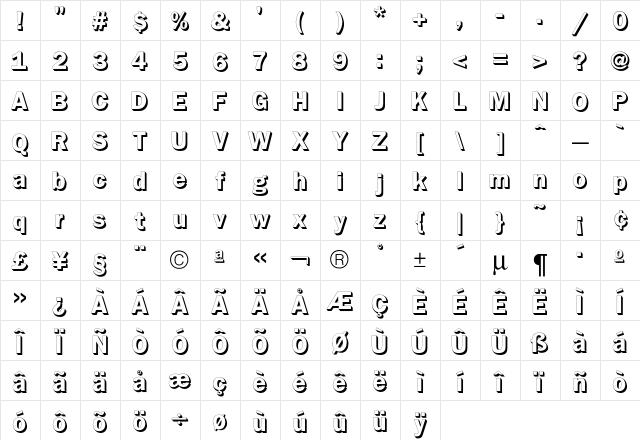
Franklin OutlineShadow
Style: OutlineShadow
Franklin OutlineShadow
Complete Franklin OutlineShadow glyph index. Displaying only characters natively supported by Franklin OutlineShadow font.
Design Context for Franklin
Franklin is built around its visual character rather than neutral utility - its distinctive forms are designed to make an impression at display sizes.
Font Pairing: Pair with a clean neutral sans-serif for body copy to let Franklin's character lead without overwhelming the composition.
Pro Tip: Use Franklin exclusively at display sizes - it was designed to be seen, not read at length. Let a neutral companion handle body copy.